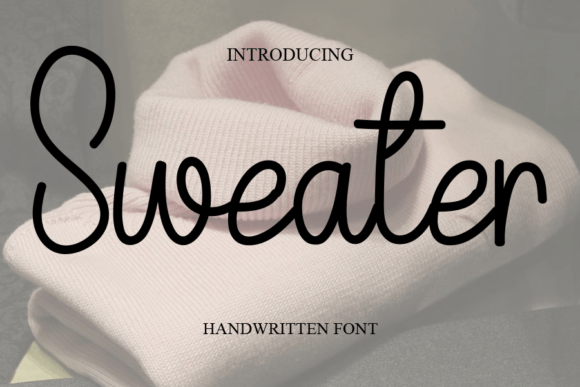
About Sweater Font
Sweater is a delightful and visually pleasing handwritten font that adds a sweet and beautiful touch to your text. With characters that gracefully dance along the baseline, this font introduces a sense of movement and fluidity, infusing a luxurious spark into any design project you wish to create.
The handwritten quality of Sweater brings a personal and authentic touch to your text, making it suitable for a variety of creative applications. Whether you’re working on branding, invitations, product packaging, or any design project that requires an elegant and luxurious feel, Sweater proves to be a versatile and charming choice.
Imagine Sweater enhancing the aesthetics of wedding invitations, introducing a romantic and luxurious spark to the celebration. Envision it gracing product packaging, creating a visual experience that resonates with consumers. Whether used in digital or print media, Sweater stands out, leaving a lasting impression on your audience.
In essence, Sweater is more than just a font; it’s a design element that brings sweetness, beauty, and a touch of luxury to your projects. Let it be the spark that elevates the overall appeal of your creative endeavors, making them truly captivating and memorable.